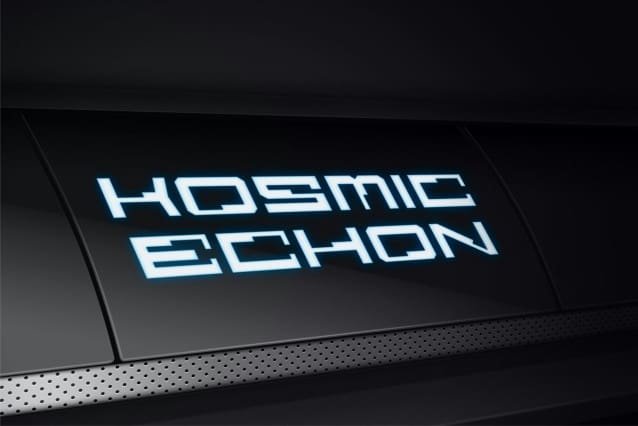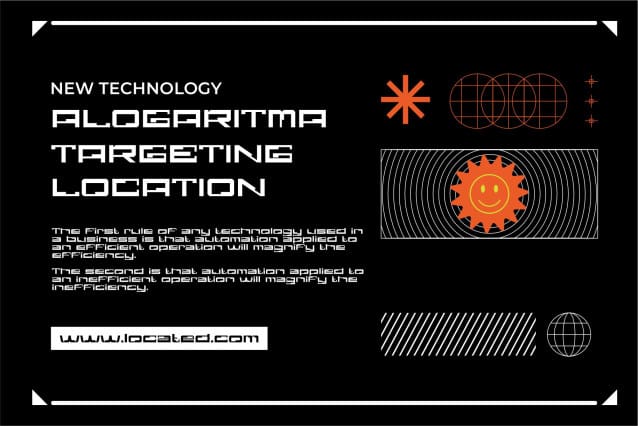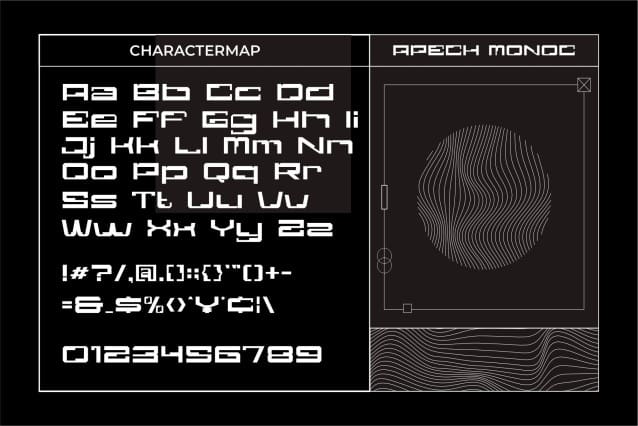
Apech Monoc Font
Apech Monoc Unique technology Display Font is a modern, trendy, bouncy and cute display font. It has a unique character with wood theme. It is perfect to be combined with invitation card designs, company logos, movie titles, movie names, business cards, book titles, brand names and various other designs.
Designer Name: SlideShoot